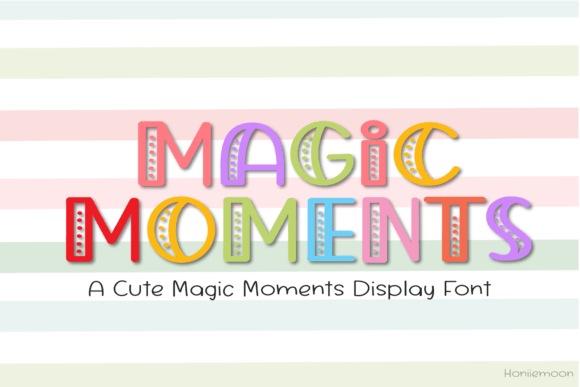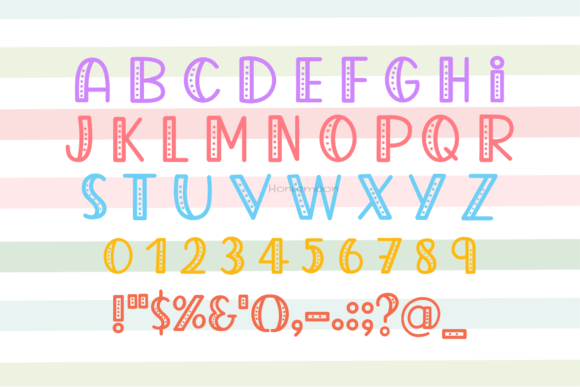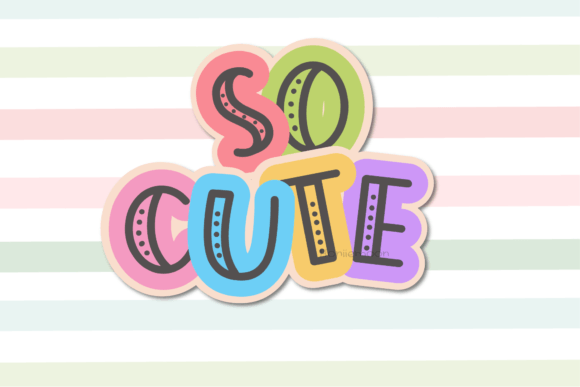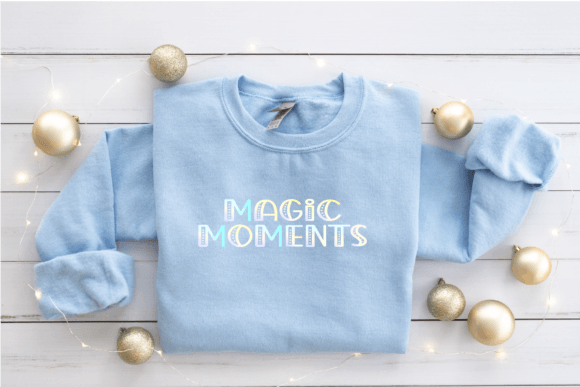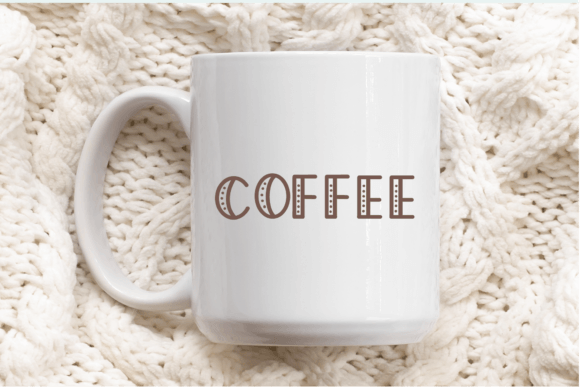
Magic Moments Font
Magic Moments is a cute and quirky display font. It will add an incredibly joyful touch to your designs. Add this beautiful display font to each of your creative ideas and notice how it makes them stand out!